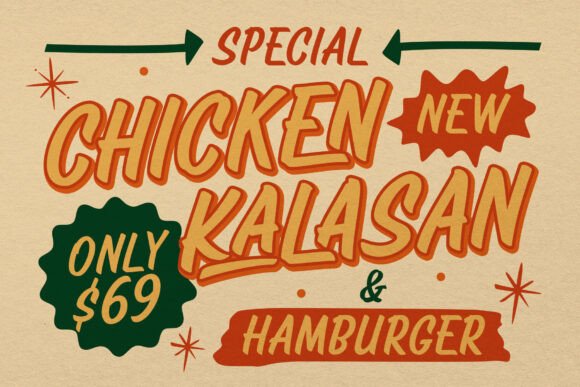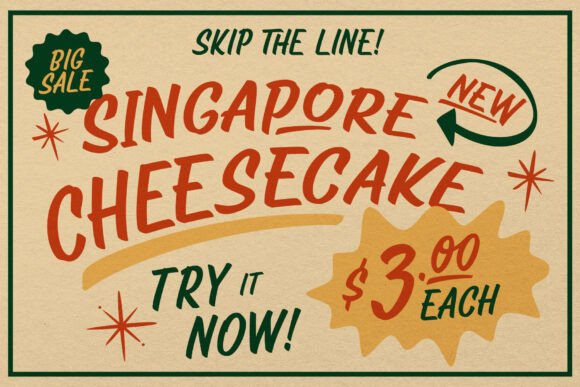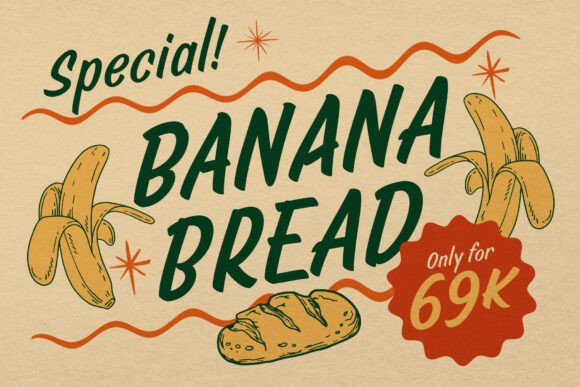
Introduction to Kanoz Brush Font
Have you ever stared at a beautifully hand-painted sign and wished you could recreate that same magic in your design project? For designers, there’s nothing quite like the thrill of bringing a creative vision to life, and the Kanoz Brush Font makes it easier than ever to achieve that authentic, handcrafted look.
With its bold, sweeping brush strokes and natural, textured appearance, the Kanoz Brush Font is the perfect design resource for anyone looking to add a touch of vintage charm to their next creative project. Whether you’re working on a high-quality logo, website, or social media campaign, this typeface is sure to impress with its high-quality, hand-painted feel.
Key Features of Kanoz Brush Font
- Unique hand-painted design with a transparent background, perfect for adding a personal touch to your creative project.
- High-quality font with a beautiful brush stroke effect, ideal for designers and artists looking for a distinctive design resource.
- Perfect for use in a variety of creative projects, including invitations, posters, and digital art.
- Supports a wide range of languages, making it a versatile design resource for global creative projects.
Honest Review: Kanoz Brush Font
As a designer, I’m always on the lookout for unique and high-quality design resources to elevate my creative projects. Recently, I stumbled upon the Kanoz Brush Font, and I must say, it’s been a game-changer.
Here are the things that work well: ✨
- High-quality design: The font is incredibly detailed and has a beautiful, hand-painted feel to it.
- Wide range of styles: The Kanoz Brush Font comes in a variety of styles, from casual to elegant, making it perfect for any creative project.
While the Kanoz Brush Font is an amazing resource, there are a few limitations: ⚠️
- Not suitable for formal projects: Due to its casual, hand-painted feel, the font may not be suitable for formal or corporate projects.
- Limited character set: While the font has a wide range of styles, it may not have the full character set that you need for more complex projects.
Overall, I’m thoroughly impressed with the Kanoz Brush Font. It’s a high-quality design resource that’s perfect for creative projects where you want to add a touch of personality and whimsy. I highly recommend it to any designer looking for a unique font to add to their collection.
Tips for Getting the Most Out of Kanoz Brush Font
For optimal results, use the Kanoz Brush Font on a high-quality background or image. Experiment with different font sizes, colors, and alignments to achieve a unique look. You can also use the font in combination with other design elements to create a cohesive and visually appealing design.
Kanoz Brush Font is suitable for various creative projects, including invitations, posters, social media graphics, and business cards. Its high-quality design and unique style make it an excellent choice for designers looking for a distinctive font to elevate their work.
Yes, Kanoz Brush Font includes a transparent background option, allowing you to easily layer the font over images or other design elements. This feature is especially useful for creating high-quality designs with a seamless look.